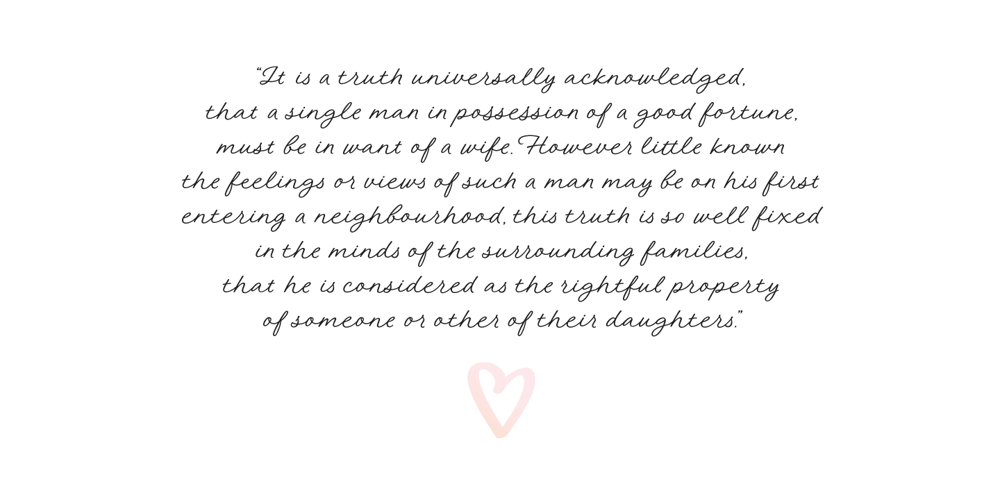
Austen Script Font Family was designed by Tanya Cherkiz and published by Tanya Cherkiz. Austen Script contains 1 styles and family package options. Need beautiful letters for your love letter or wedding invitations? Look no more! Austen Script is an elegant and feminine typeface, named after Jane Austen, one of my favorite writers, who wrote so much about love. It includes uppercase and lowercase letters, numerals, punctuation, stylistic alternates, some ligatures and alternate uppercase letters, and multilingual support.